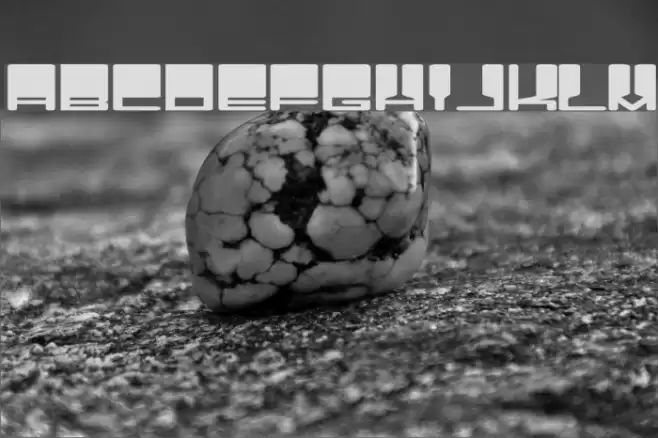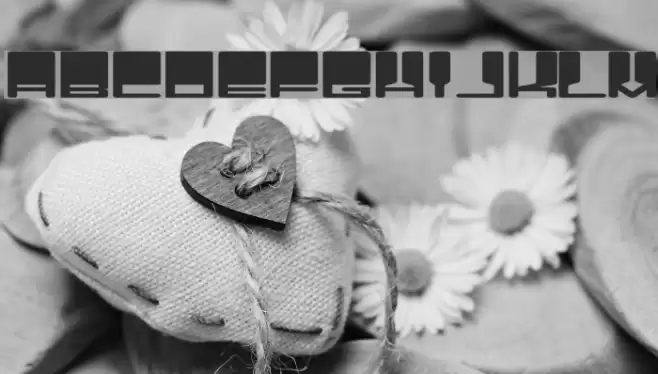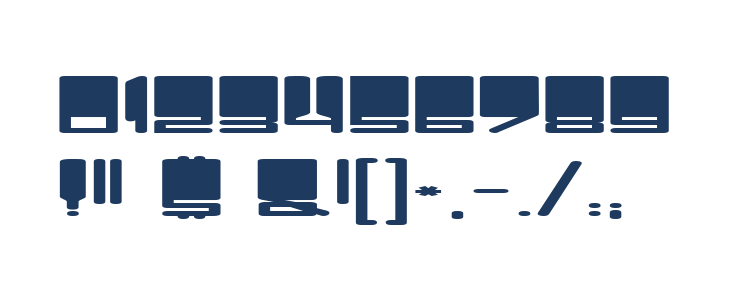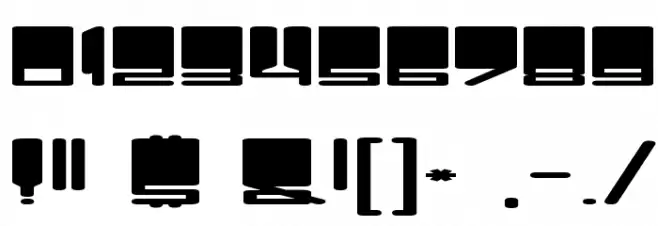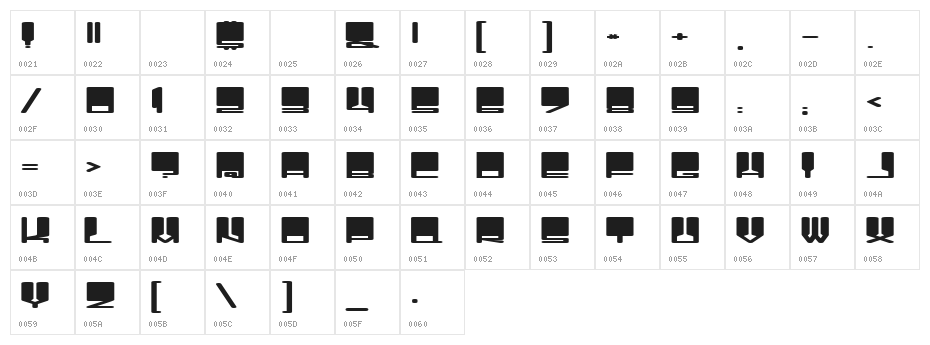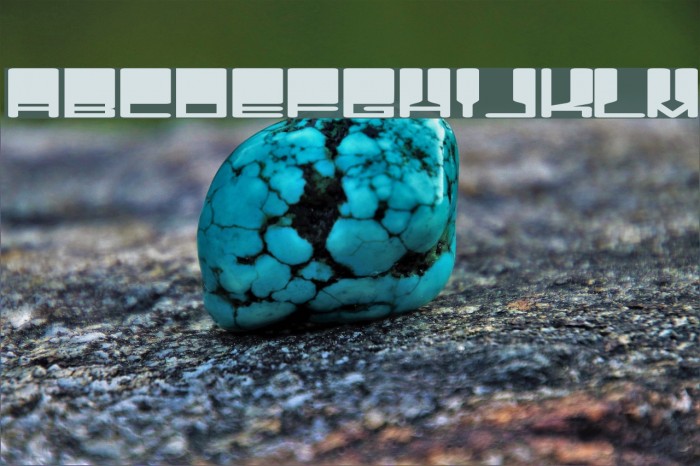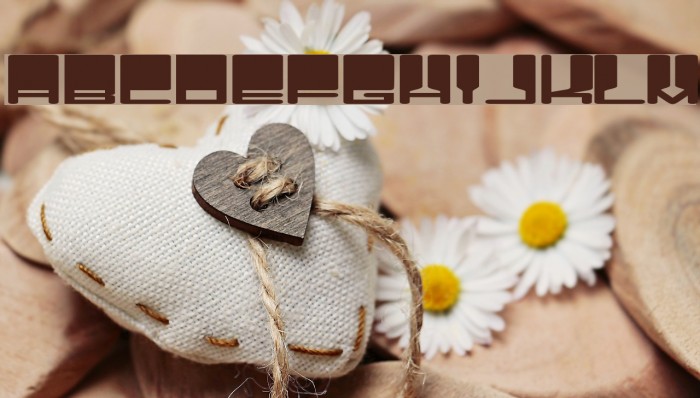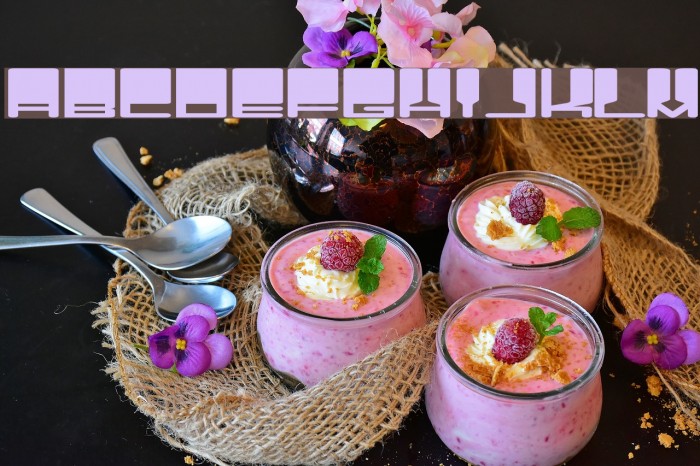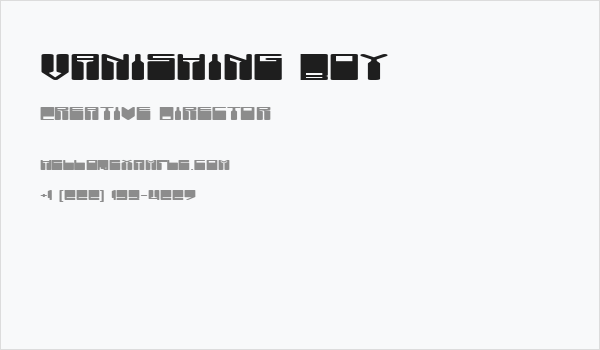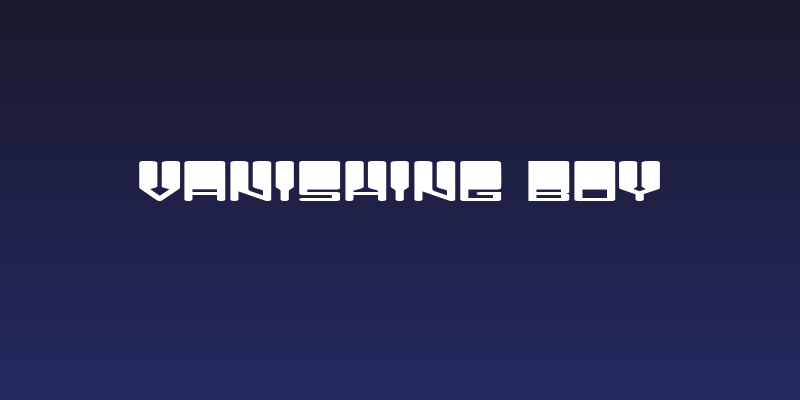
Vanishing Boy Font
Vanishing Boy Description
This font features a bold, futuristic design with a strong geometric influence. The characters are constructed with thick, block-like shapes that create a sense of solidity and strength. The use of negative space within the letters adds a unique visual interest, making it stand out in any design. The uppercase and lowercase letters maintain a consistent style, with angular edges and a uniform height. Numbers and special characters follow the same design principles, ensuring a cohesive look across all text elements. The font's boldness and distinctive style make it ideal for attention-grabbing headlines and modern design projects.
A bold, geometric font with a futuristic and solid design from Modern fonts.
- Font: Vanishing Boy
- Proposed Projects: Ideal for sci-fi themed posters, video game graphics, technology branding, and modern advertising campaigns.
- Overall Style: Futuristic, Modern